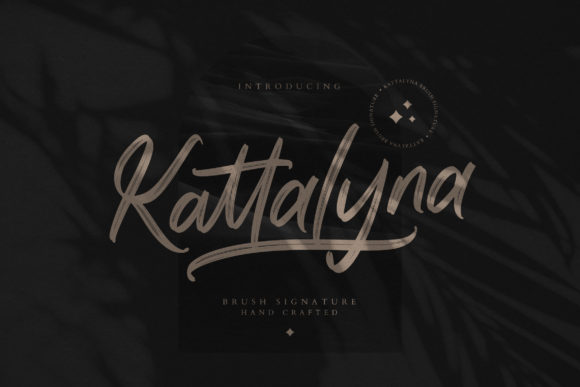
About Kattalyna Font
Kattalyna is a stunning brushed script font, featuring a natural flow. This font is PUA encoded which means you can access all of the glyphs and swashes with ease!